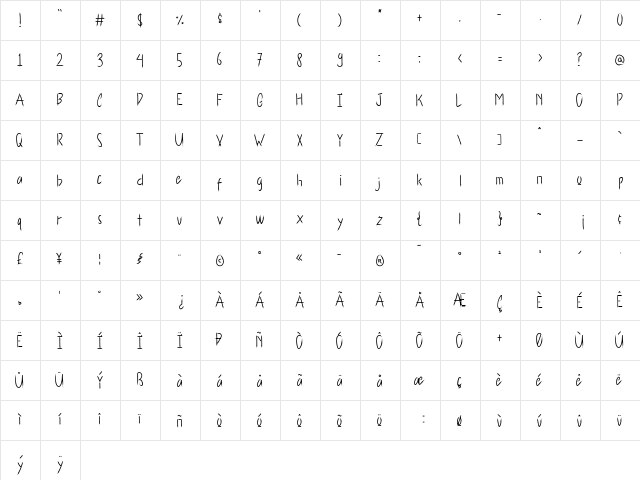
Kolt Vox Regular
| Designer | Muhammad Hisyam Rivai |
Design Context for Kolt Vox Typeface
Kolt Vox is a composed and adaptable typeface that performs quietly and consistently across a wide range of design contexts.